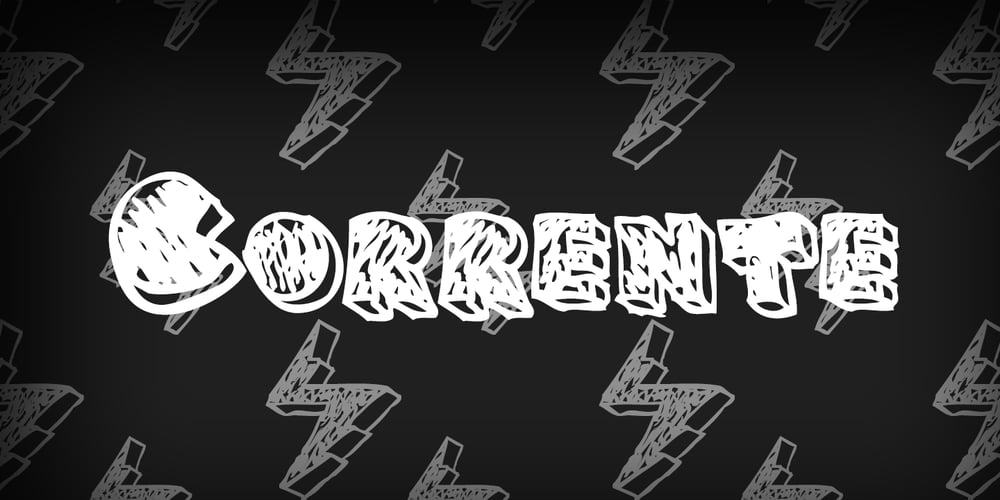
Corrente Font Family was designed by Domenico Mazza and published by d[esign]. Corrente contains 1 styles and family package options. Corrente, named aptly for its “electric” letter shading (“corrente” is Italian for “current” (electrical)) will add a little spark to your works. Corrente’s “Dagger” glyphs are lightning bolts!